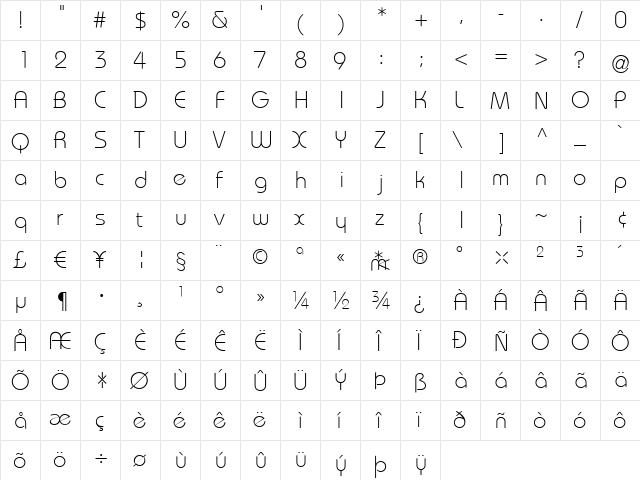
MonaKo Regular
Design Context for MonaKo Typeface
MonaKo offers clean, dependable letterforms without strong stylistic allegiance, making it a practical choice for designers who need flexibility.